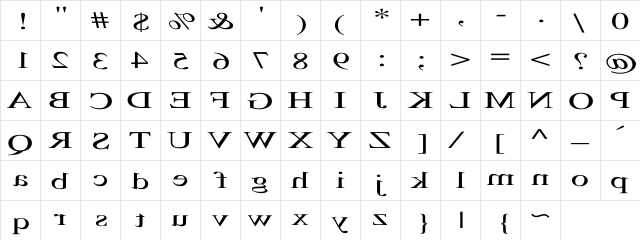
RSTimesMirror Ex Regular
Design Context for RSTimesMirror Ex Typeface
RSTimesMirror Ex is a composed and adaptable typeface that performs quietly and consistently across a wide range of design contexts.